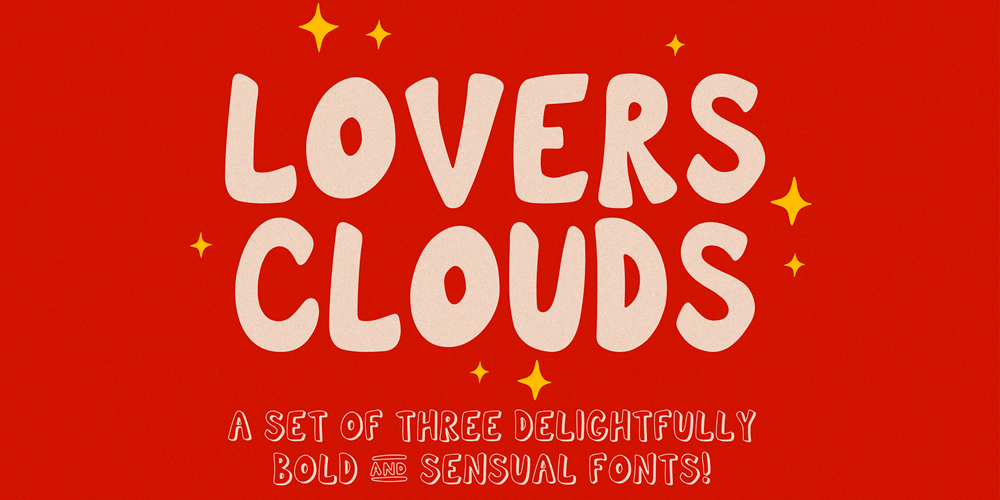
Lovers Clouds Font Family was designed by Anastasia Kuznetsova and published by Anastasia Kuznetsova. Lovers Clouds contains 3 styles and family package options. Say Hello to Lovers Clouds! A set of three delightfully bold and sensual cloud-style fonts!Perfect for in-game quotes, packaging, branding, invitations, greeting cards and more. Super easy to use!Font Features: A-Z; a-z character set; 1 language (English); numbers and punctuation marks, symbols. Fonts can be opened and used in any software that can read standard fonts, even in MS Word. No special software is required to get started.It is recommended to use it in Adobe Illustrator or Adobe Photoshop.Made with love and magic ♡Thank you for reading it, and do not hesitate to send me a message if you have any questions!~ Anastasia